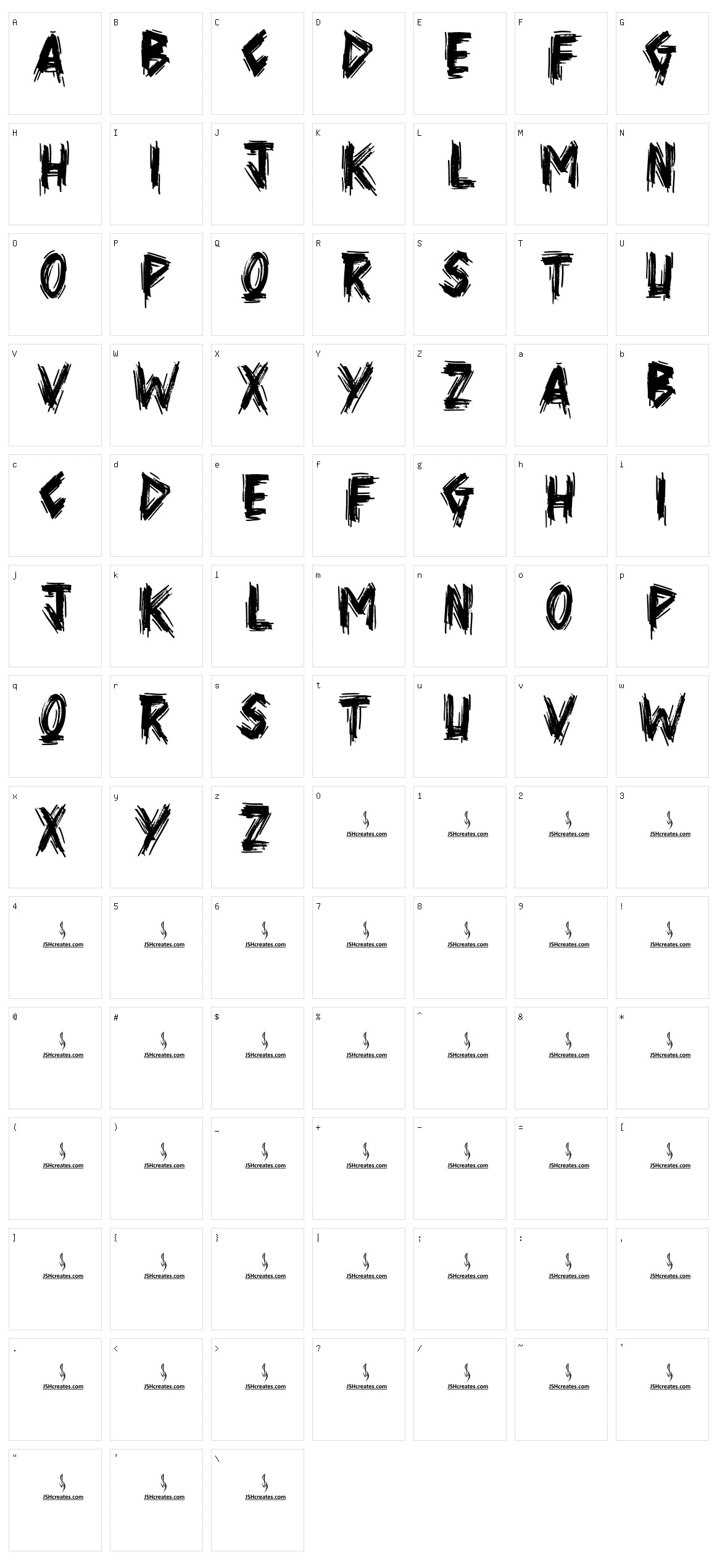
The free font System Overload is carefully designed by JSH creates, showcasing a thoughtful balance of creativity and usability and falls under the Trash font style. When you download the ZIP file, it contains only 258.74 KB of font files, making it lightweight and quick to download. Please review the license details below to understand permitted usage and distribution rights. If license information is not available, we recommend using this font for personal projects only or contacting the author directly for commercial usage permissions.